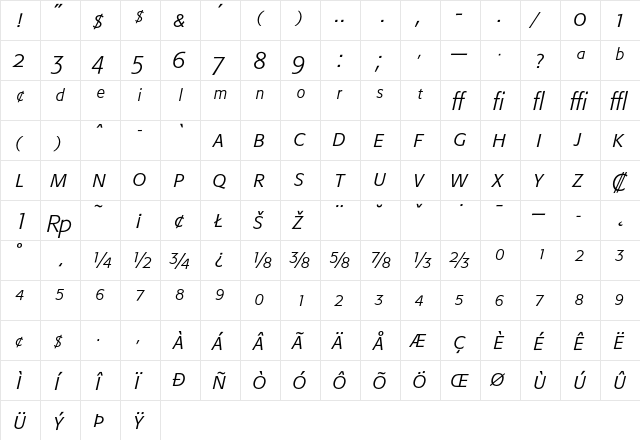
Formata Light Italic Expert Font Preview
Design Context for Formata Typeface
Formata takes a measured approach to typography — its balanced proportions and neutral character make it a reliable workhorse for both digital and print work. Its italic angle brings a sense of urgency and motion to the letterforms. Its slender proportions lend an understated elegance to any composition.
Pro Tip: Try Formata for annotation and caption copy alongside an upright companion — the contrast in angle creates a dynamic but ordered typographic system.